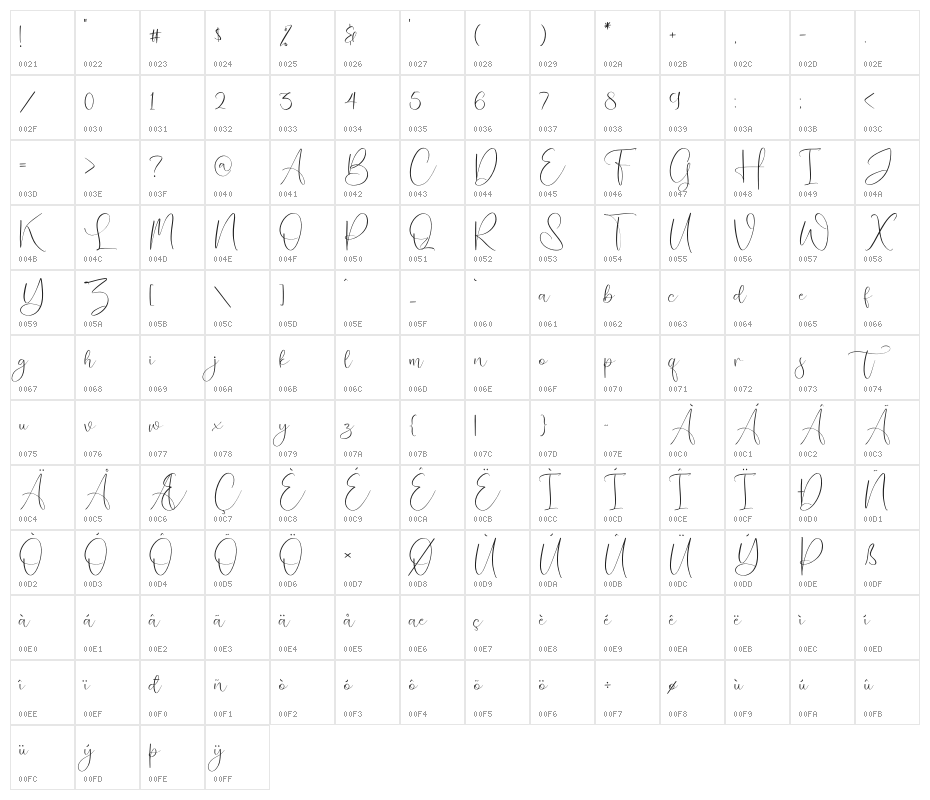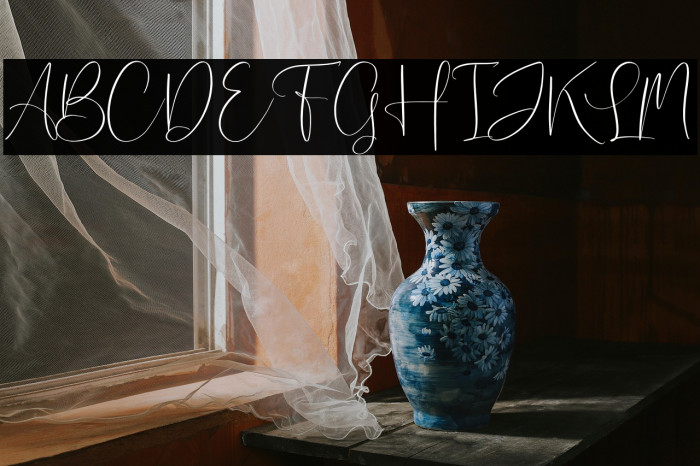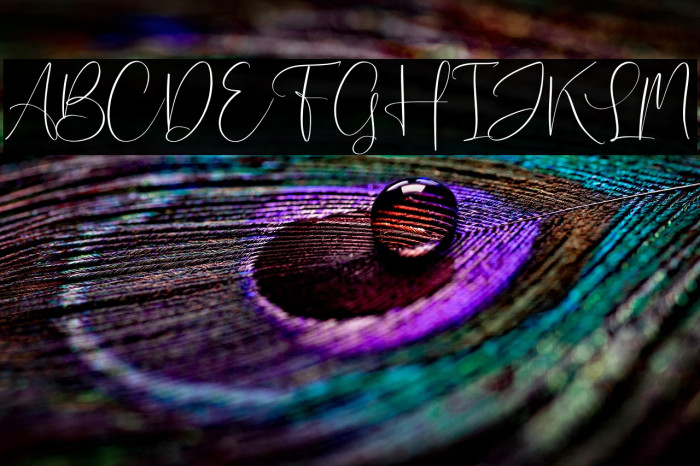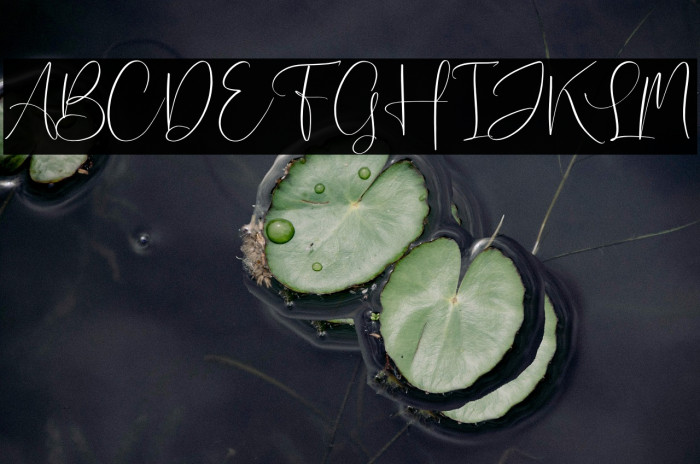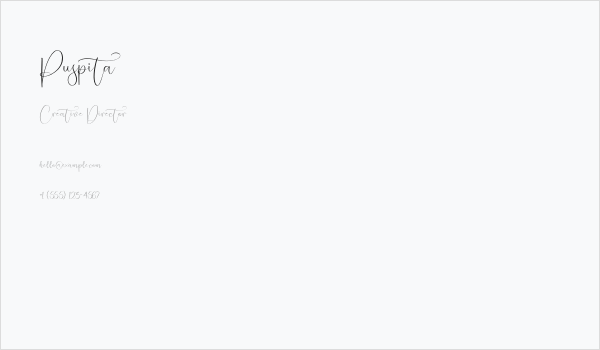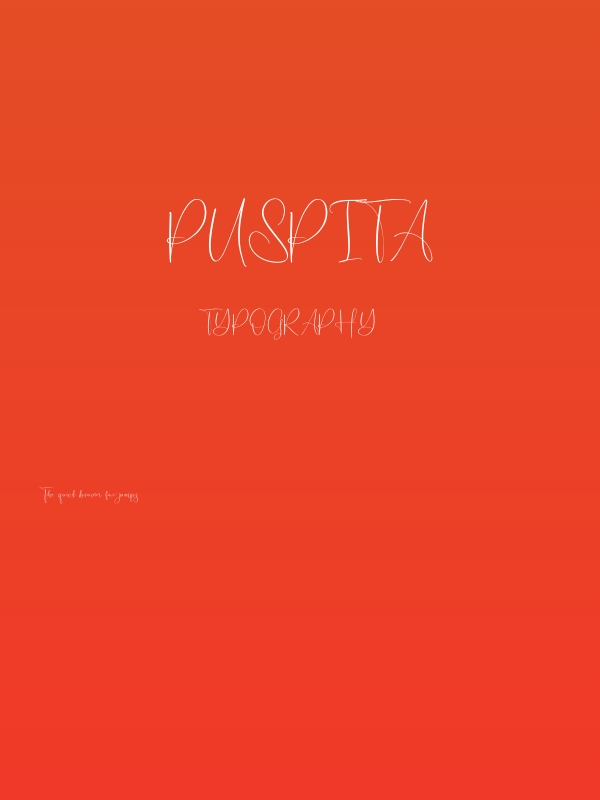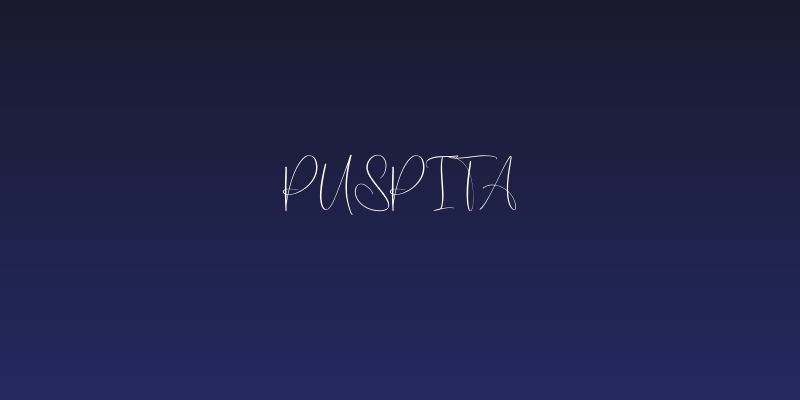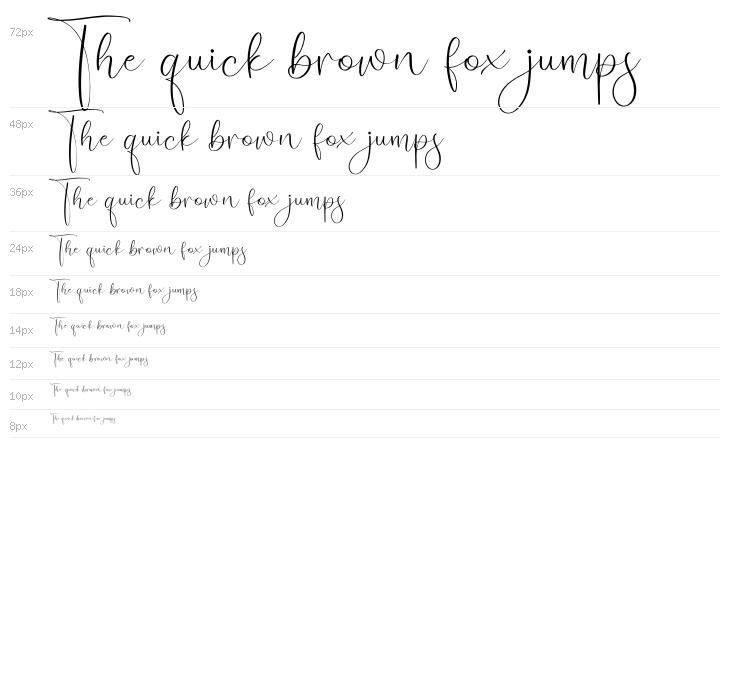
Puspita Font
Puspita Description
This font features an elegant and flowing script style, characterized by its smooth, cursive strokes and delicate lines. The uppercase letters are tall and graceful, with a slight slant that adds a sense of movement and fluidity. The lowercase letters are equally refined, with loops and curves that enhance the font's overall elegance. The numerals maintain the same flowing style, ensuring consistency throughout. Special characters are thoughtfully designed to match the aesthetic, making this font suitable for a variety of creative applications. Its delicate appearance suggests a hand-drawn quality, perfect for adding a personal touch to any project.
| Overall Style | Elegant, Handwritten |
| Proposed Projects | Ideal for wedding invitations, greeting cards, branding, and elegant logos. |